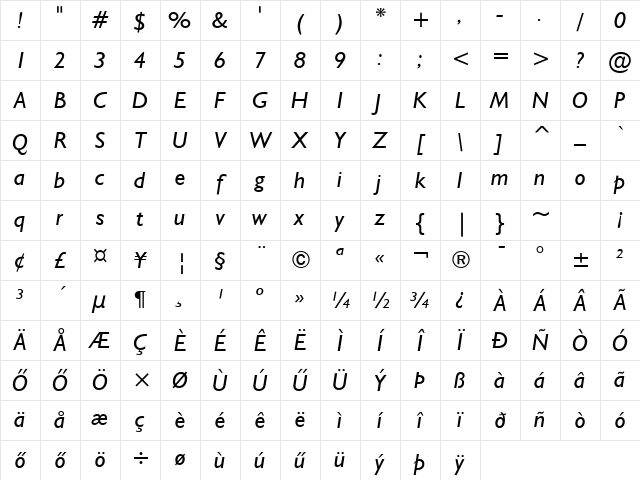
Humanist-521 HU is a composed and adaptable typeface that performs quietly and consistently across a wide range of design contexts. The slanted form adds forward momentum and visual energy.
Pro Tip: Use Humanist-521 HU for emphasis, pull quotes, and subheadings where its slanted energy can add rhythm to the layout.